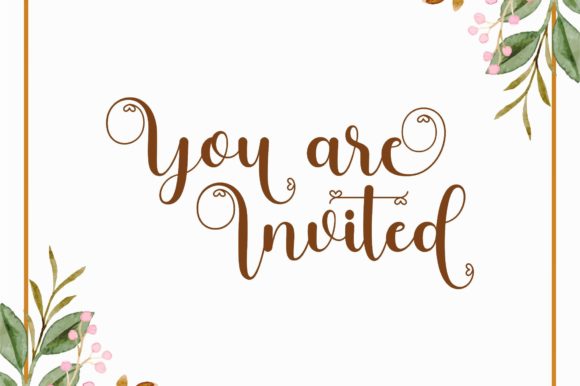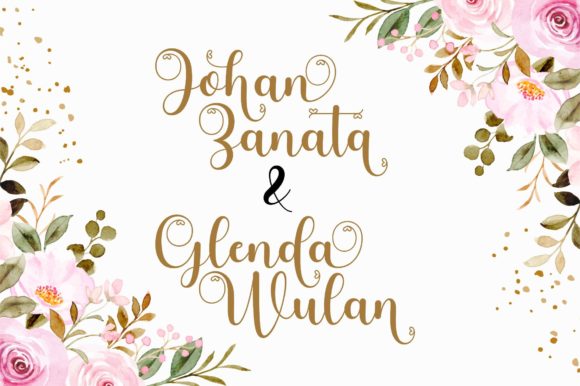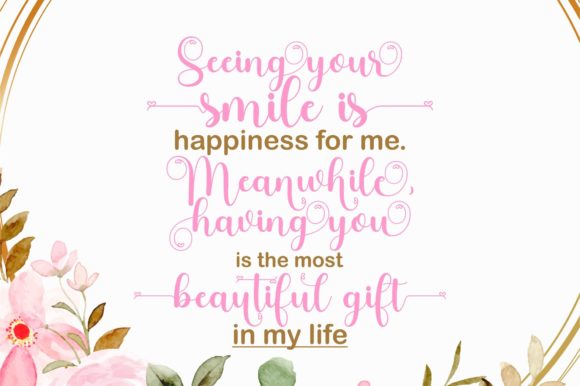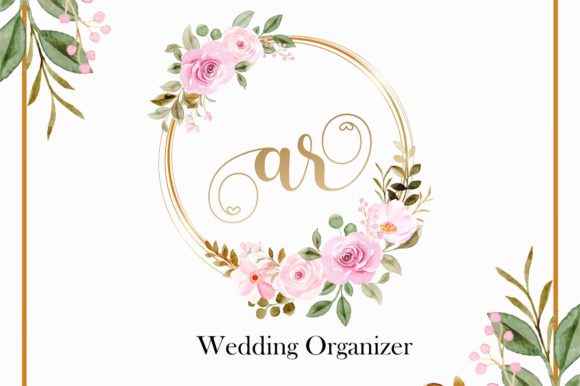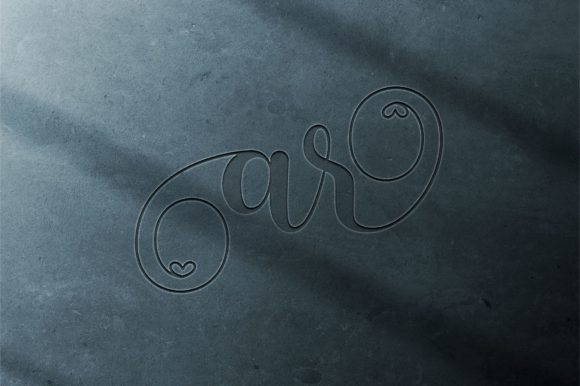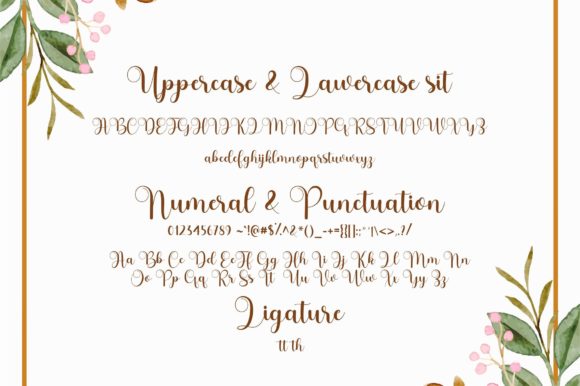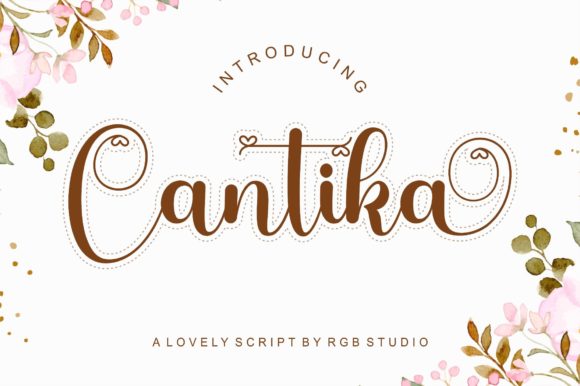
Cantika Font: The Ultimate Romantic Script Font for Designers and Crafters
Are you a designer or crafter looking for a font that exudes romance, cuteness, and playfulness? Look no further than the Cantika Font! This beautiful script font is perfect for creating stunning designs that capture the essence of love, joy, and celebration. In this article, we’ll dive into the features and benefits of Cantika Font, and explore how you can use it to elevate your designs.
What is Cantika Font?
Cantika Font is a romantic, cute, and bouncy script font that is designed to add a touch of elegance and whimsy to your designs. With its flowing curves and delicate lines, this font is perfect for creating beautiful wedding invitations, greeting cards, social media quotes, and more. Whether you’re a professional designer or a crafty DIY enthusiast, Cantika Font is sure to inspire your creativity.
Key Features of Cantika Font
- Romantic and Cute Design: Cantika Font features a unique and charming design that is sure to capture the hearts of your audience. Its romantic and cute style makes it perfect for designs that require a touch of warmth and personality.
- Versatile and Flexible: Cantika Font is a versatile font that can be used for a wide range of designs, including wedding invitations, greeting cards, social media quotes, branding, logos, and more.
Benefits of Using Cantika Font
So, why should you choose Cantika Font for your designs? Here are just a few benefits of using this amazing font:
- Save Time and Effort: With Cantika Font, you can create stunning designs in no time. Its easy-to-use glyphs and swashes make it simple to customize your projects and achieve professional-looking results.
- Stand Out from the Crowd: Cantika Font is a unique and distinctive font that will help your designs stand out from the crowd. Its romantic and cute style is sure to capture the attention of your audience and leave a lasting impression.
- Perfect for DIY Projects: Cantika Font is perfect for DIY enthusiasts and crafters who want to add a personal touch to their projects. Whether you’re creating wedding invitations, greeting cards, or other crafts, this font is sure to inspire your creativity.
- What is Cantika Font?: Cantika Font is a romantic, cute, and bouncy script font with a romantic touch.
- What can I use Cantika Font for?: Cantika Font is perfect for wedding invitations, greeting cards, social media quotes, branding, logos, and more.